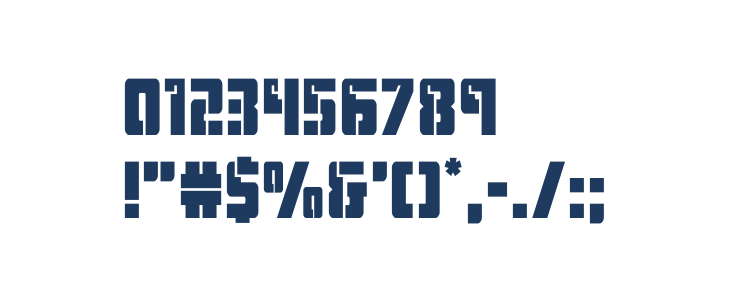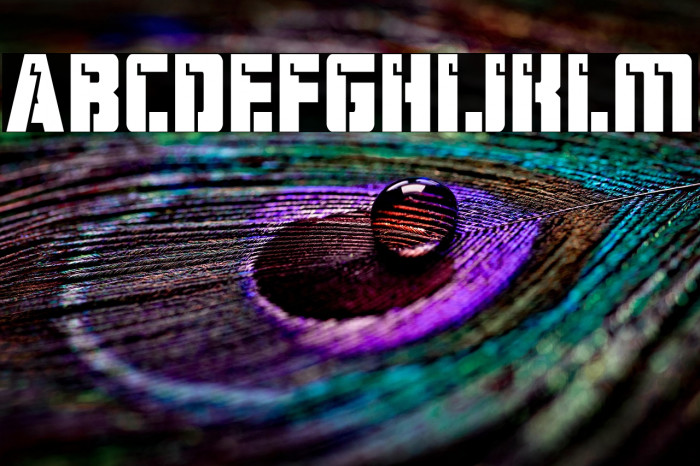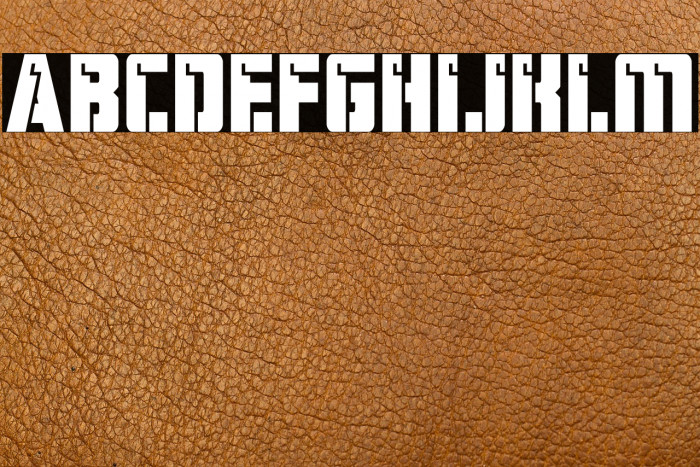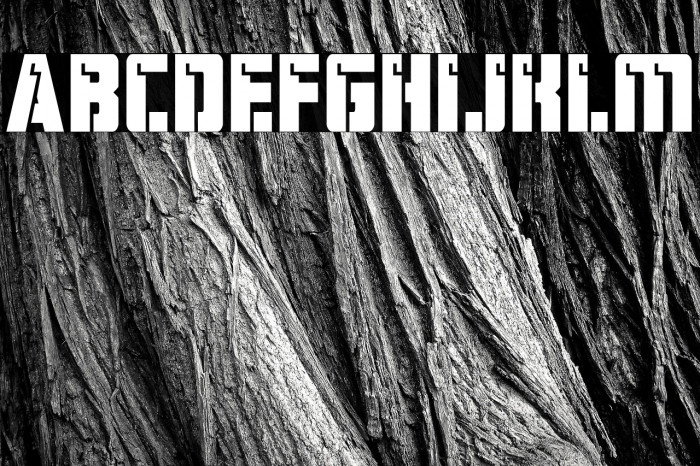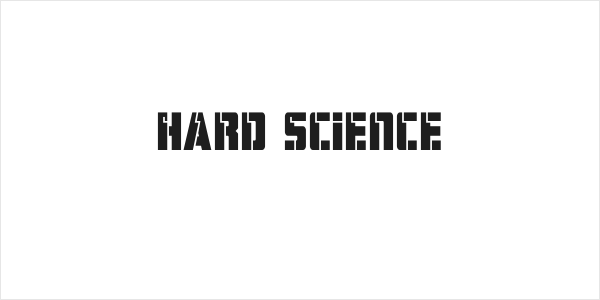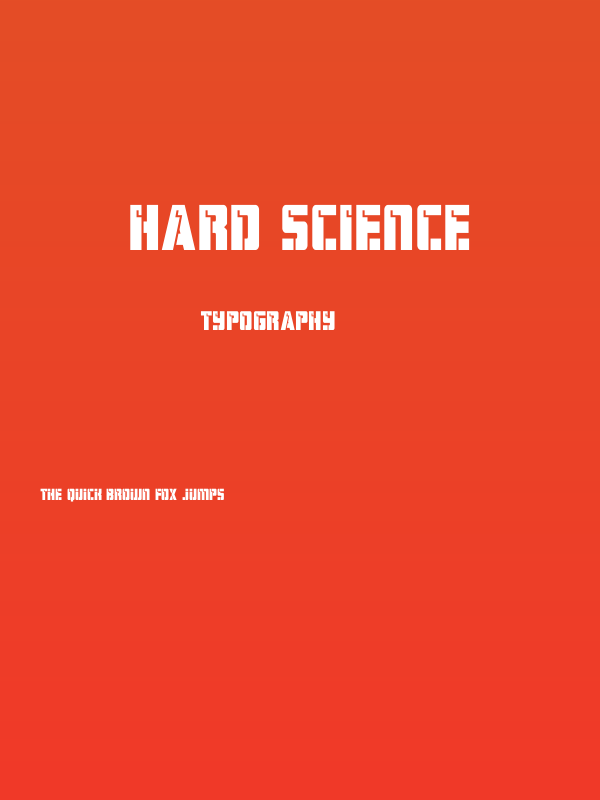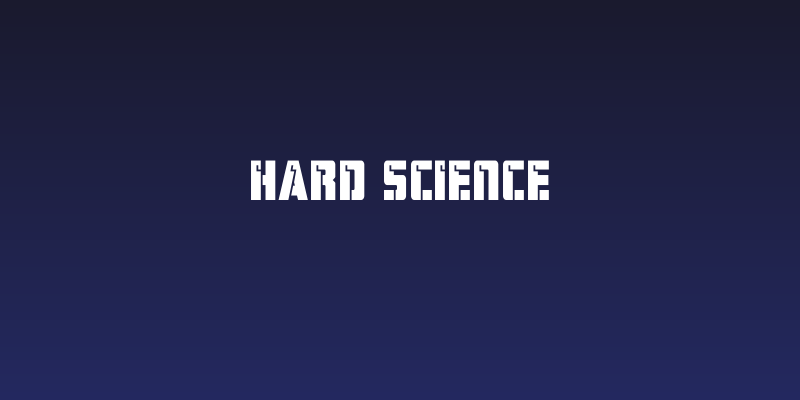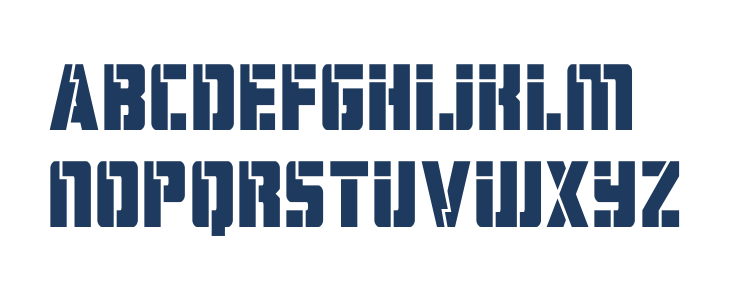
Hard Science Font
Hard Science Description
This font features a bold and striking design with a futuristic and industrial aesthetic. The characters are blocky and geometric, with sharp angles and a strong presence. The uppercase and lowercase letters maintain a consistent style, emphasizing a sense of uniformity and strength. The numbers and special characters are designed to match the boldness of the alphabet, making the font suitable for impactful and attention-grabbing designs. The overall appearance is modern and assertive, ideal for projects that require a strong visual impact.
| Proposed Projects | Ideal for sci-fi themed designs, video game graphics, posters, and branding that requires a strong, modern look. |